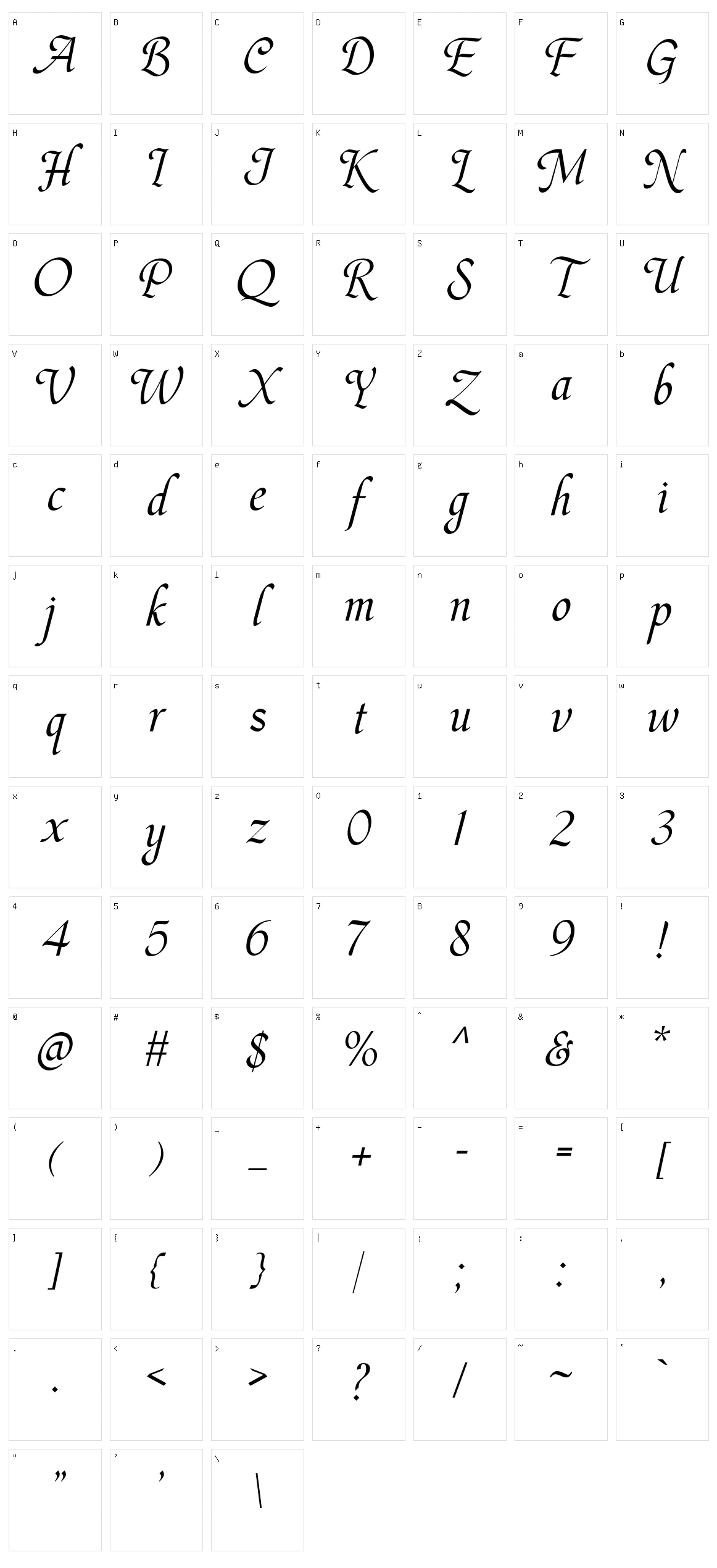
The free font Hargalia is carefully designed by Arterfak Project, showcasing a thoughtful balance of creativity and usability and falls under the Script font style. When you download the ZIP file, it contains only 62.18 KB of font files, making it lightweight and quick to download. Please review the license details below to understand permitted usage and distribution rights. If license information is not available, we recommend using this font for personal projects only or contacting the author directly for commercial usage permissions.